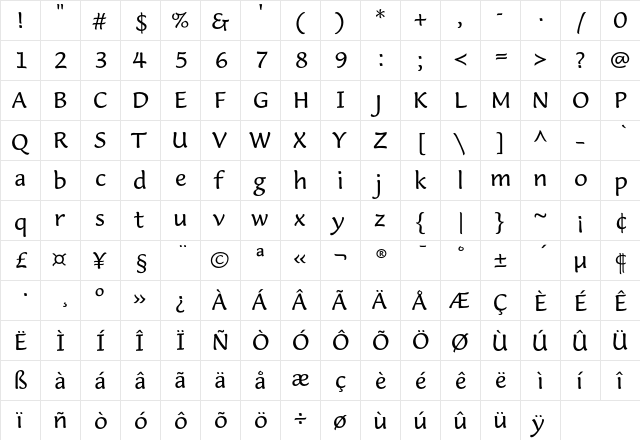
LucidaCasualEF Roman
Design Context for LucidaCasualEF Typeface
LucidaCasualEF takes a measured approach to typography — its balanced proportions and neutral character make it a reliable workhorse for both digital and print work.
Pro Tip: Use LucidaCasualEF in both headline and body roles to test its range before committing to a single application.